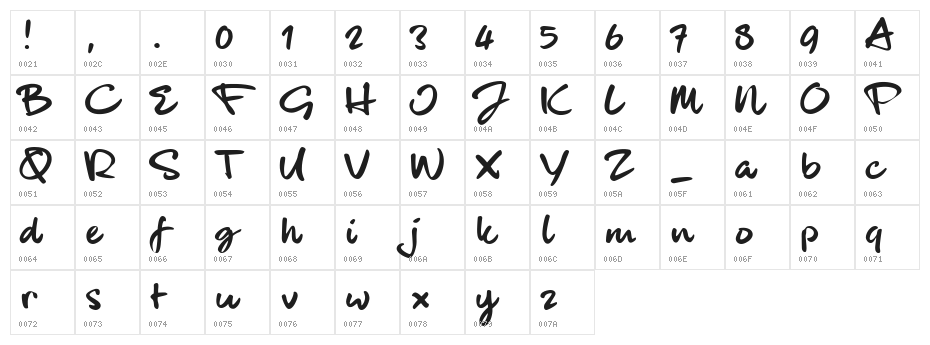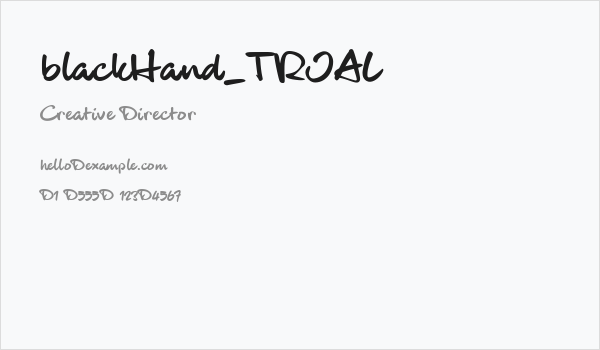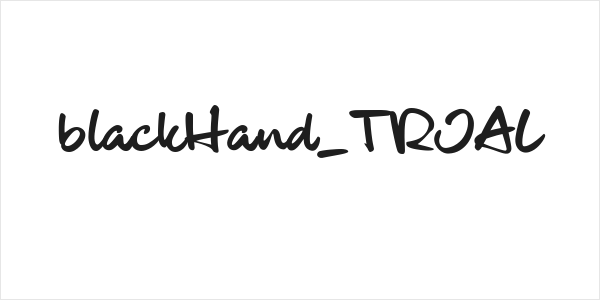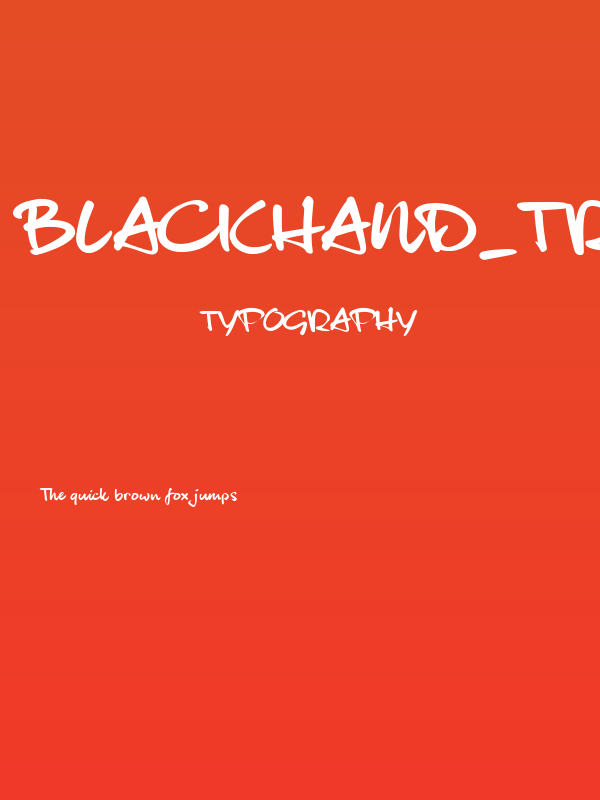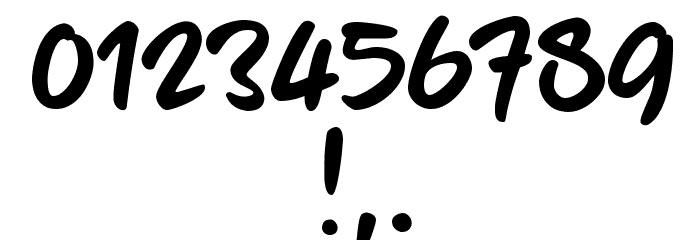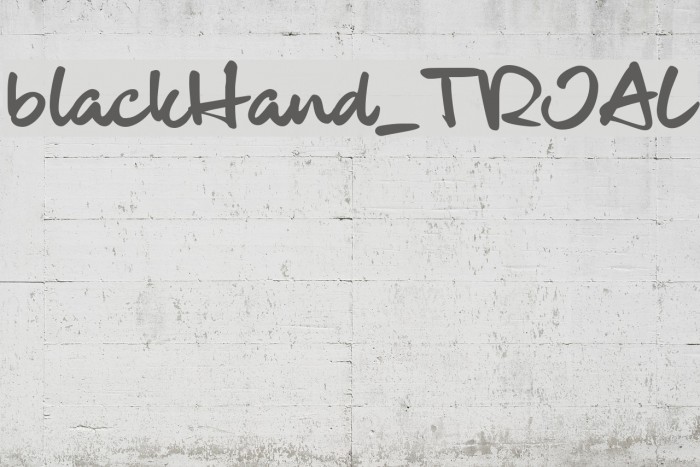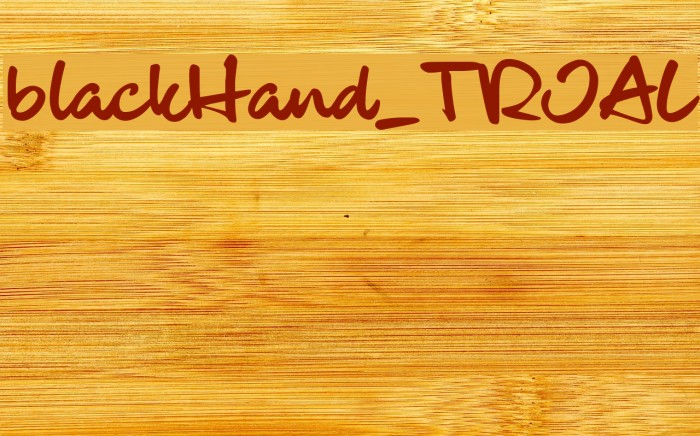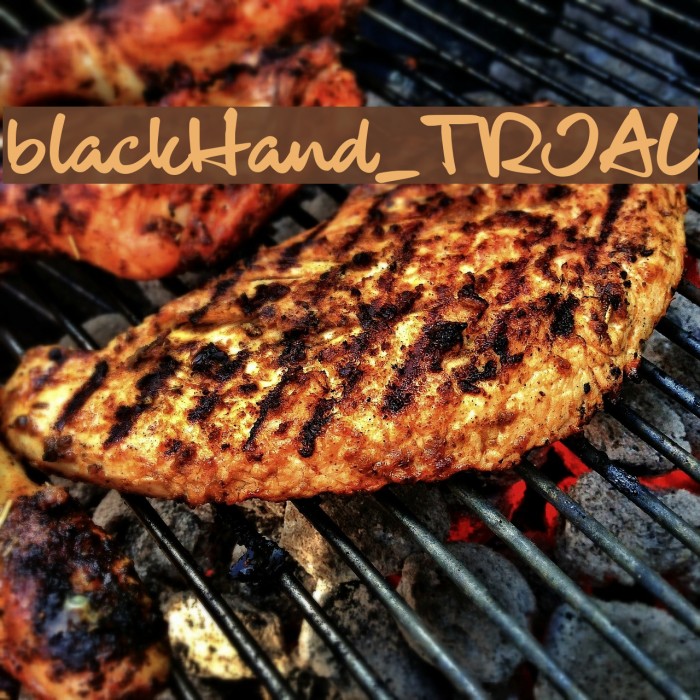
blackHand_TRIAL Font
blackHand_TRIAL Description
This font features a bold, handwritten style with a playful and energetic appearance. The letters are slightly slanted, giving a dynamic and informal feel. The strokes are thick and consistent, creating a strong visual impact. The uppercase and lowercase letters maintain a cohesive style, with rounded edges and smooth curves. The numbers and special characters follow the same bold and lively design, ensuring uniformity across all characters. This font is ideal for projects that require a personal touch or a casual, friendly vibe.
| Proposed Projects | Ideal for greeting cards, invitations, posters, and branding that requires a personal and informal touch. |